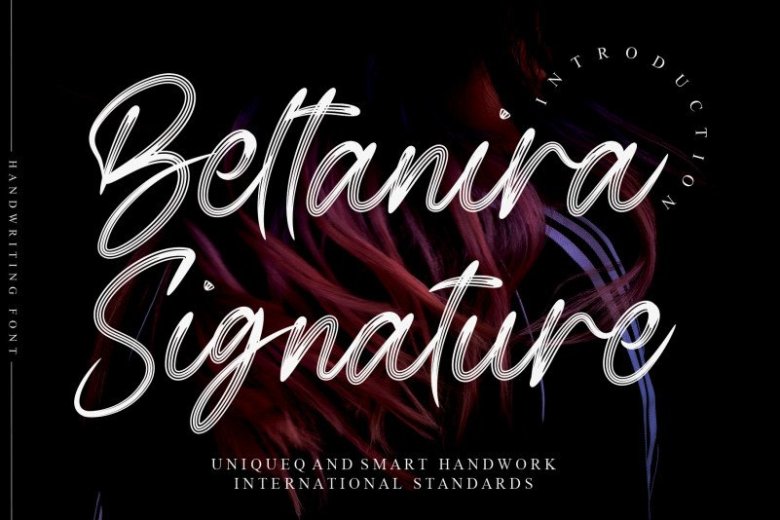
Beltanira Signature Script Font
Introducing Beltanira Signature Script Font. Special creative products for you, our products will give you an extraordinary experience.
The latest style letters are perfect for wall displays, wedding invitations, social media post logos,
advertisements, product packaging, product designs, labels, photography, watermarks, invitations, stationery,
and any project that requires taste handwriting.